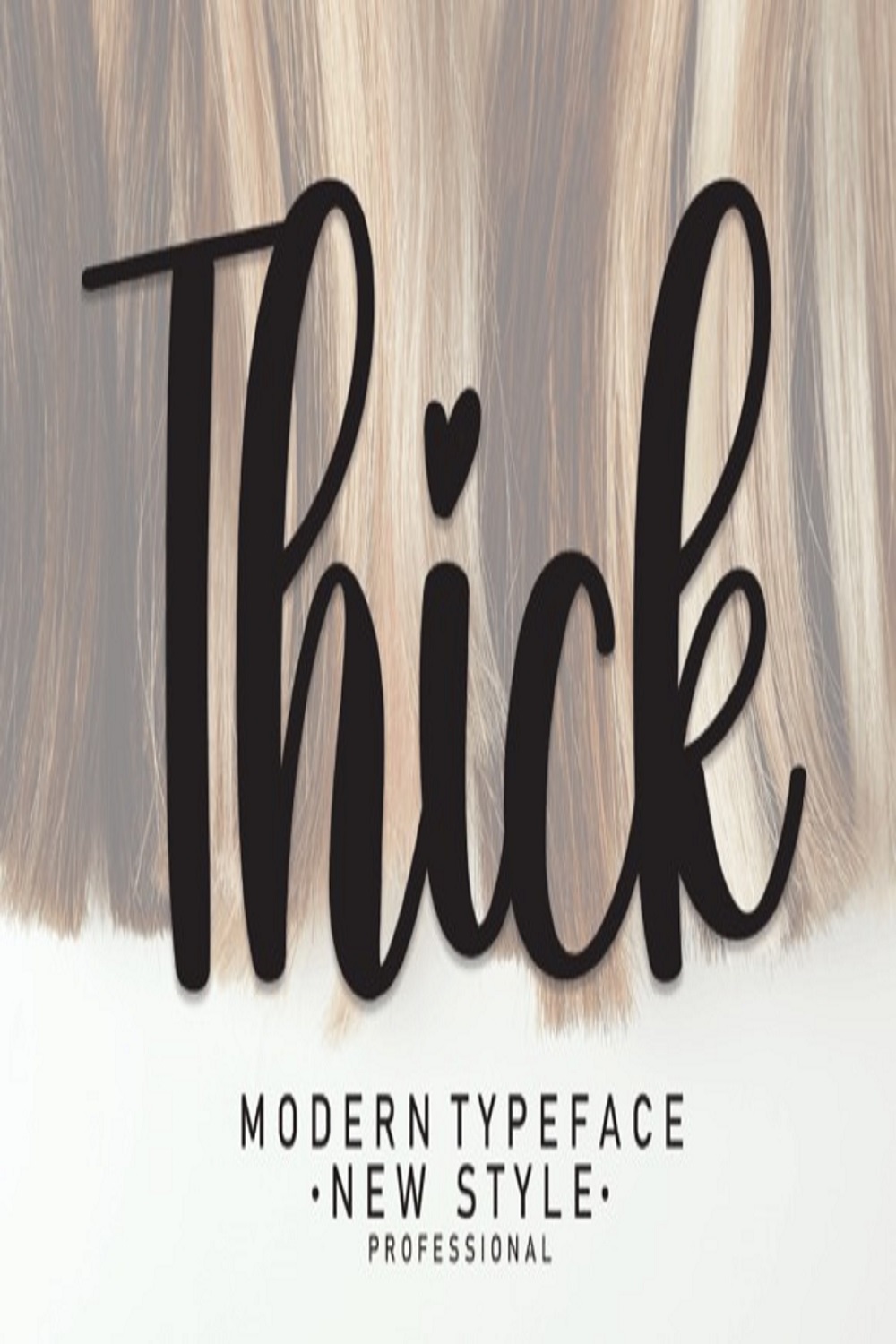
Thick’s latest style letters are perfect for wall displays, wedding invitations, social media post logos, advertisements, product packaging, product designs, labels, photography, watermarks, invitations, stationery, and any project that requires handwritten taste.